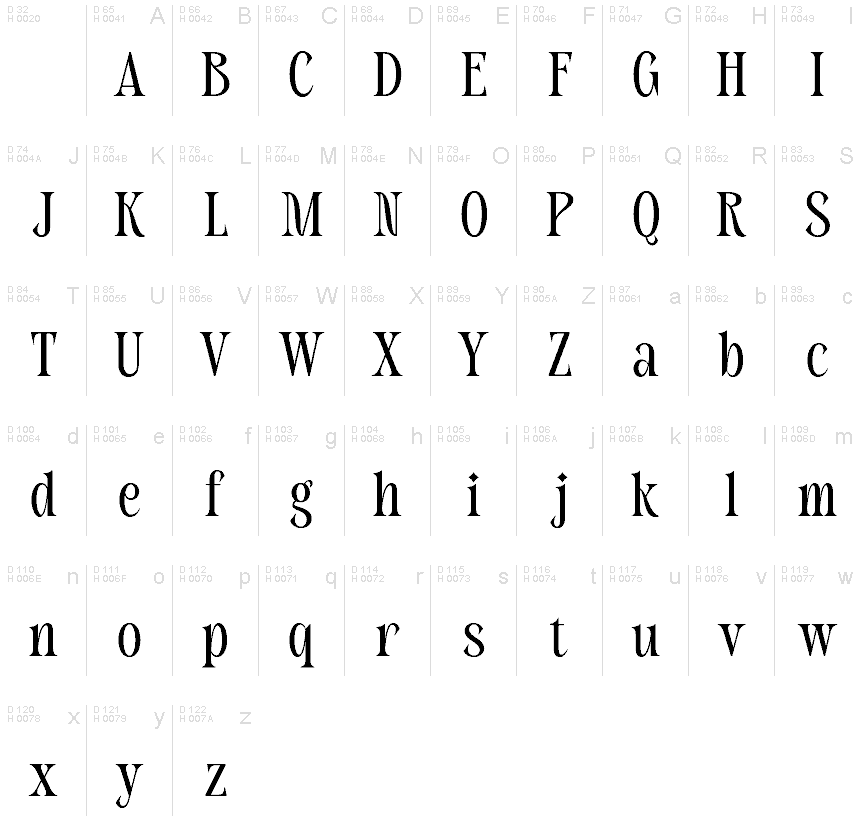
CS Lenox Regular Demo
CS Lenox font by Craft Supply Co. is a condensed serif font that sets an elegant and refined tone. It combines a sophisticated vintage look with the functionality of contemporary typography for the best user experience. Similar to its famous predecessors, CS Lenox has calm and smooth letter shapes that harmonize well together regardless of the context.